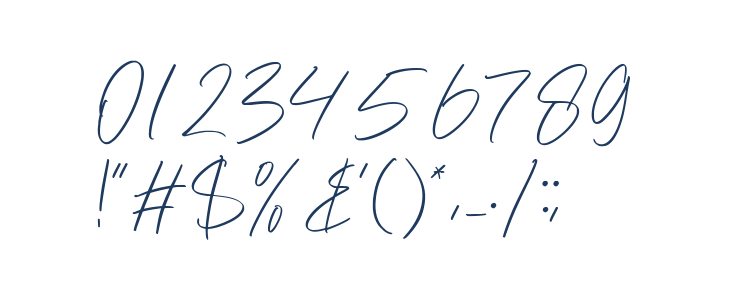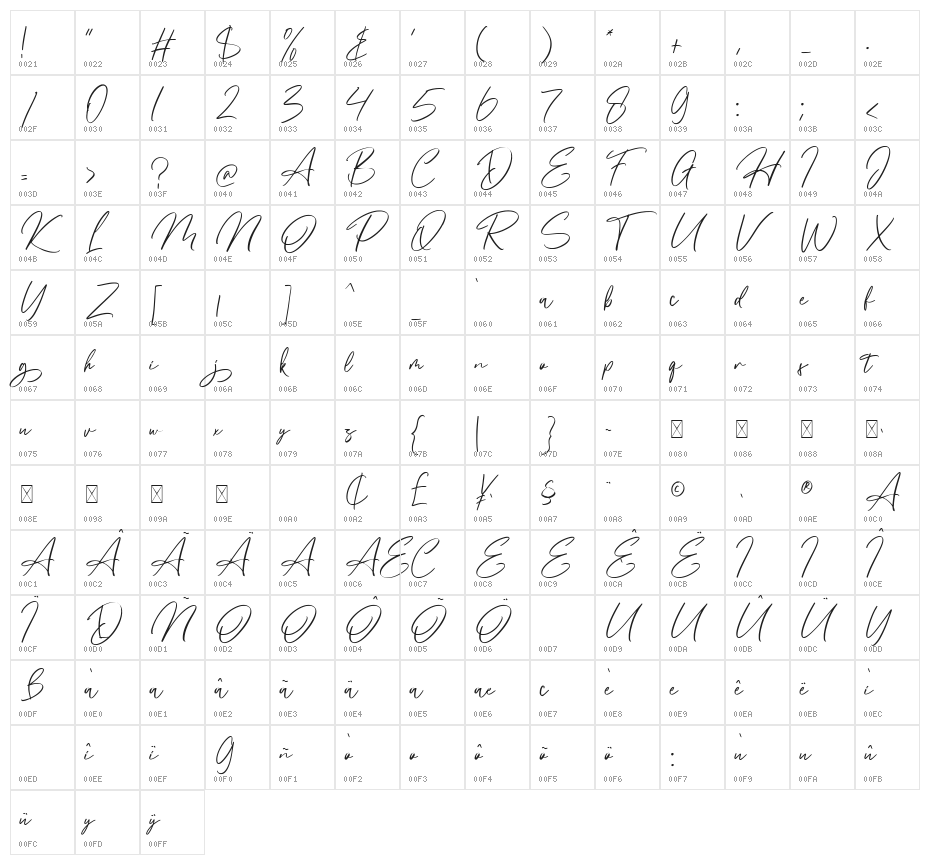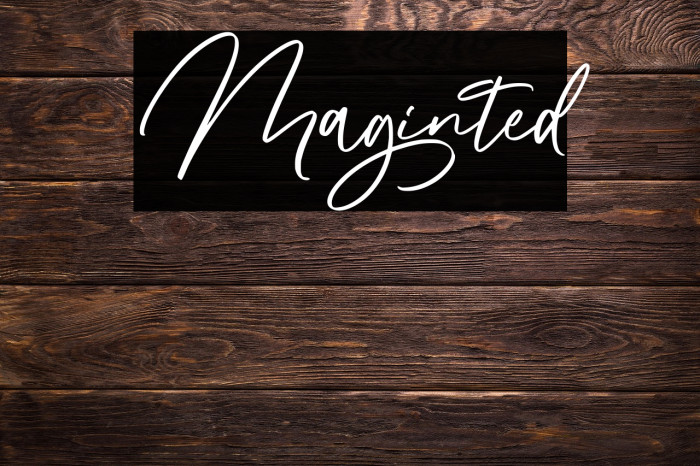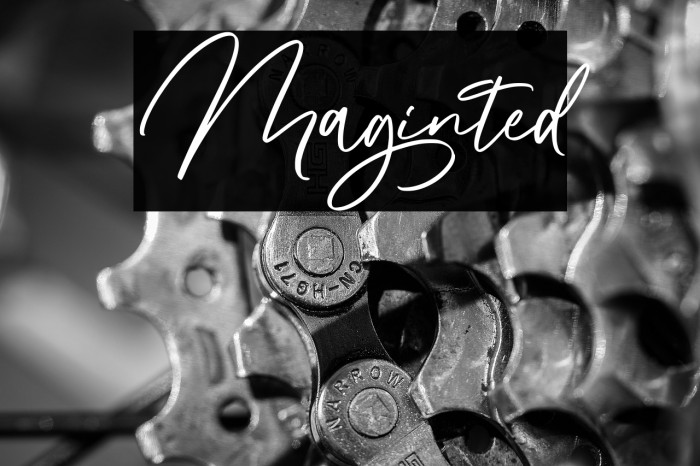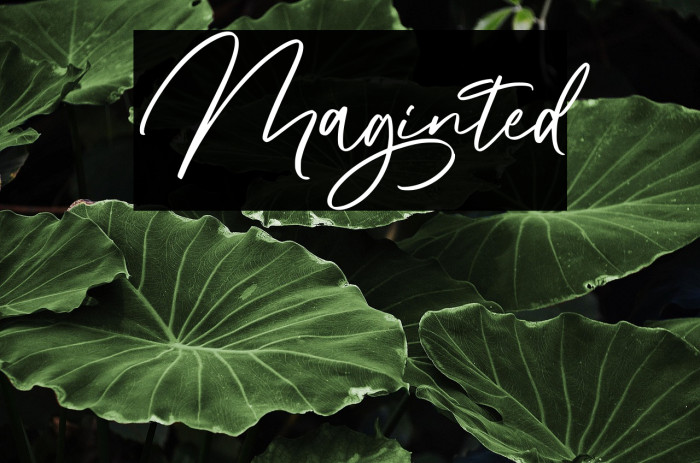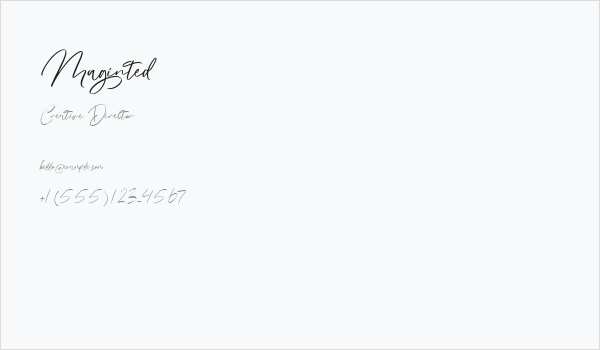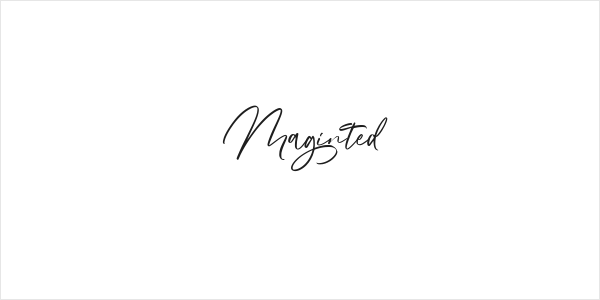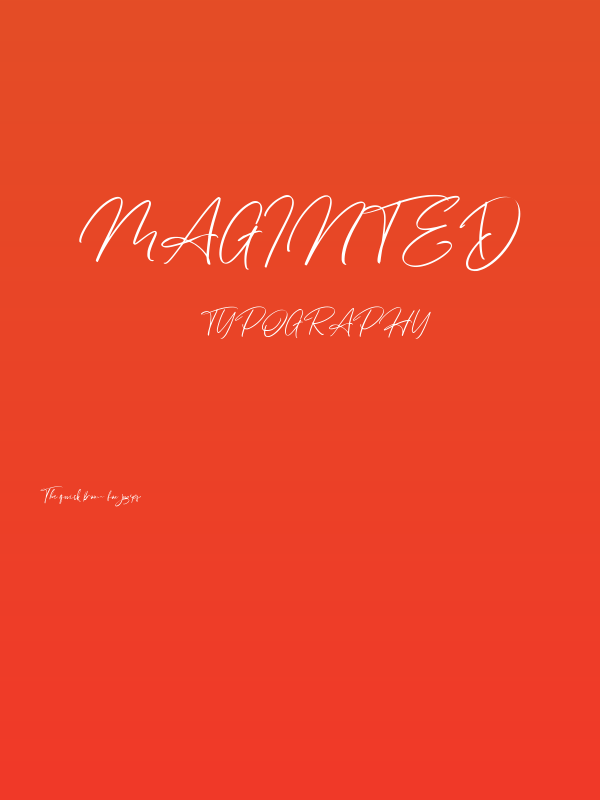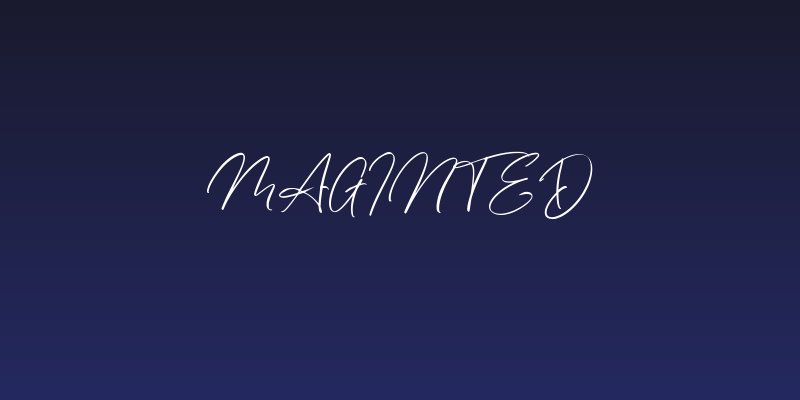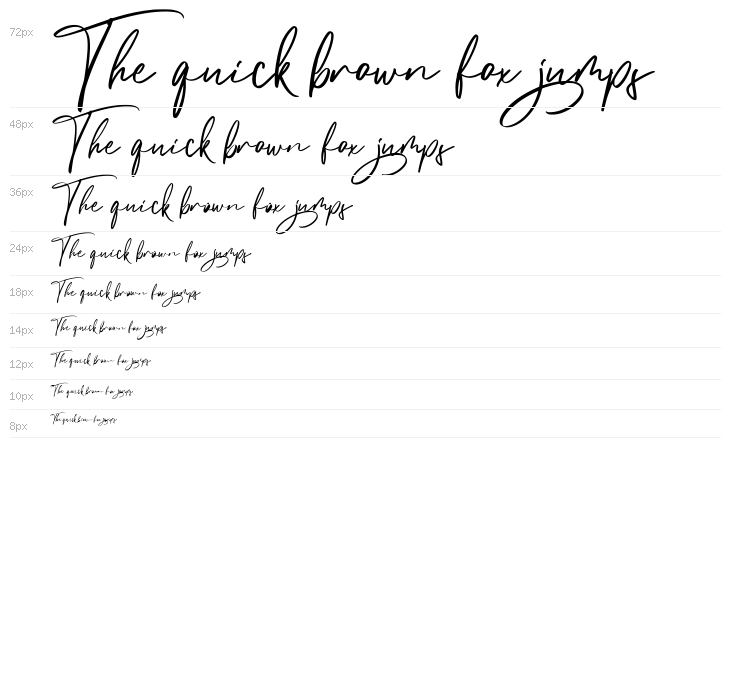
Maginted Font
Maginted Description
This elegant script font features a fluid and graceful design, characterized by its flowing, cursive strokes that mimic the natural motion of handwriting. The uppercase letters are slightly more elaborate, with sweeping curves and loops that add a touch of sophistication. The lowercase letters maintain a consistent style, with smooth connections between characters, enhancing the font's readability. Numbers and special characters are crafted with the same attention to detail, ensuring a cohesive look across all elements. The font's overall appearance is both stylish and versatile, making it suitable for a variety of creative projects.
| Proposed Projects | Ideal for wedding invitations, branding, greeting cards, and elegant packaging designs. |